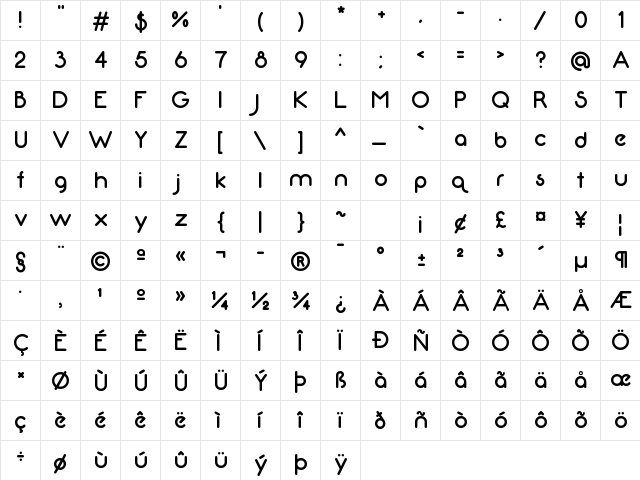
Neon 80s Regular
Design Context for Neon 80s Typeface
Neon 80s channels digital-age aesthetics through its sharp, structured letterforms — ideal for brands that want to signal innovation.
Pro Tip: Use Neon 80s in combination with a neutral sans for body text. Let it define the brand voice in headlines while keeping reading comfortable elsewhere.